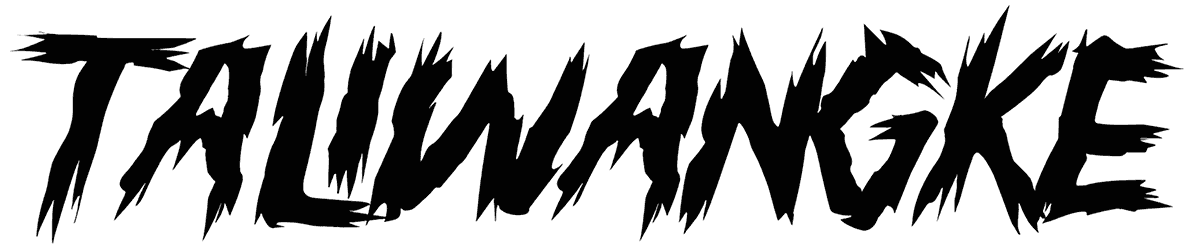
Taliwangke Font
Inspire the audience with your all-time gorgeous, scary typography, which you can run professionally by utilizing the Taliwangke font! This distinctive horror font with a sharp edge and brush face will add an angry, dread feel to your fabulous design.
Taking on the heart of the quaint evil lettering while providing a nice chance for designing Halloween posters, games, headers, and others. It’s exactly what you lack to be distinctive; despite lacking lowercase, it leaves no stone unturned in highlighting your representations.